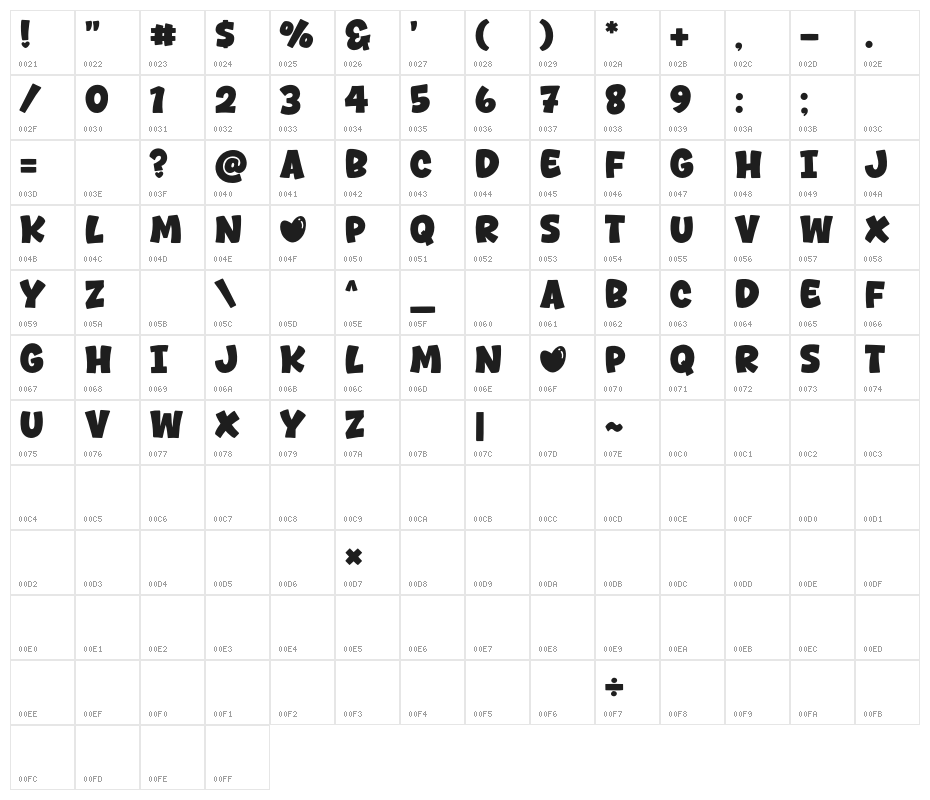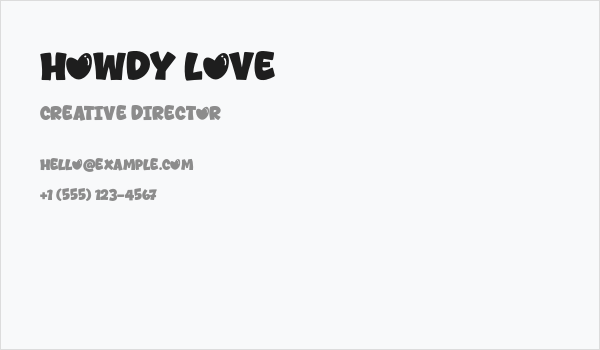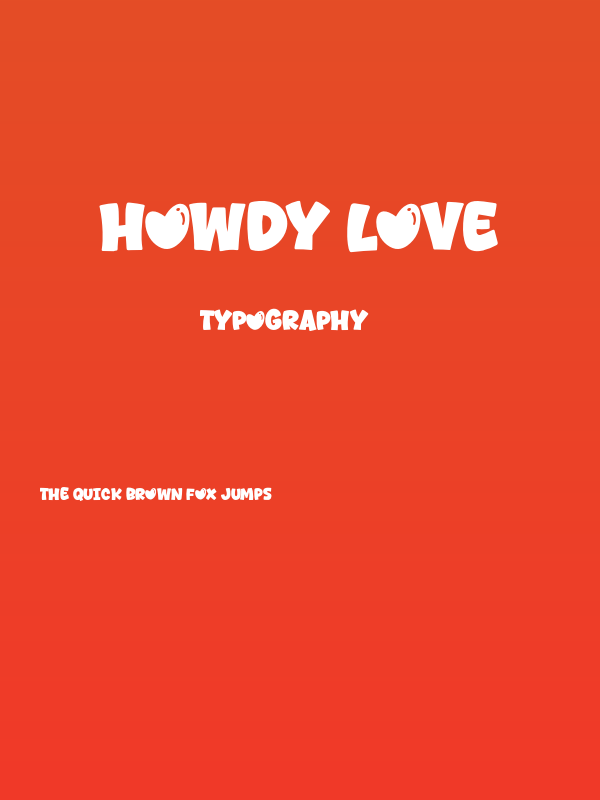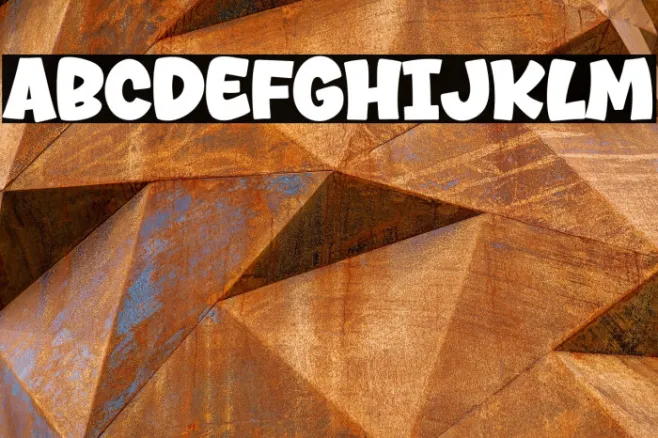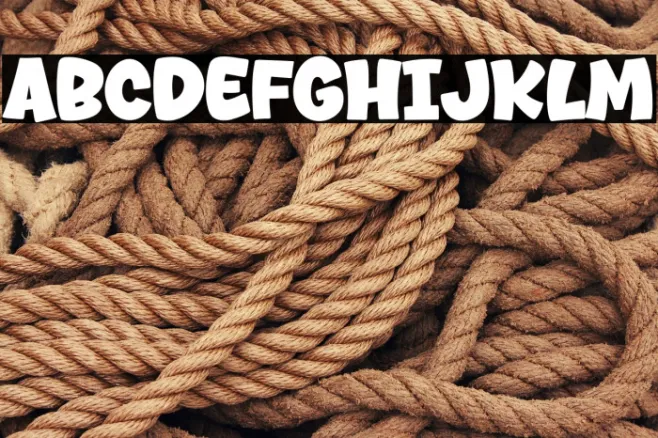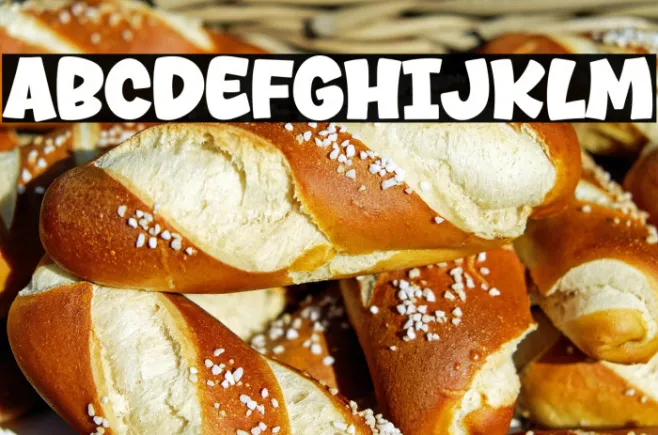
Howdy Love Font
Howdy Love Description
This playful and bold font features a chunky, cartoonish style with exaggerated curves and a whimsical flair. The letters are thick and rounded, giving off a friendly and approachable vibe. The heart-shaped detail within the letter 'O' adds a unique and charming touch, making it stand out. The numbers and special characters maintain the same boldness and playful design, ensuring consistency throughout. This font's overall appearance is lively and energetic, perfect for projects that require a fun and engaging aesthetic.
| Overall Style | Playful, Cartoonish, Fun |
| Proposed Projects | Ideal for children's books, playful branding, party invitations, and fun social media graphics. |